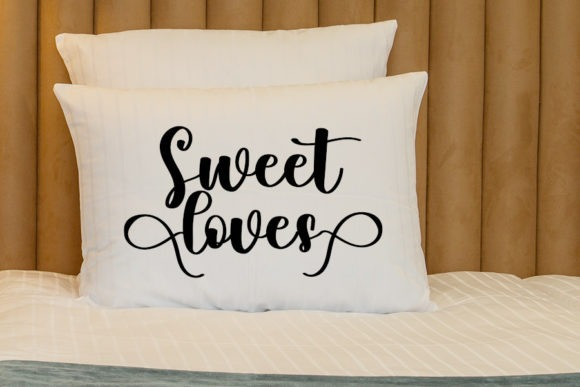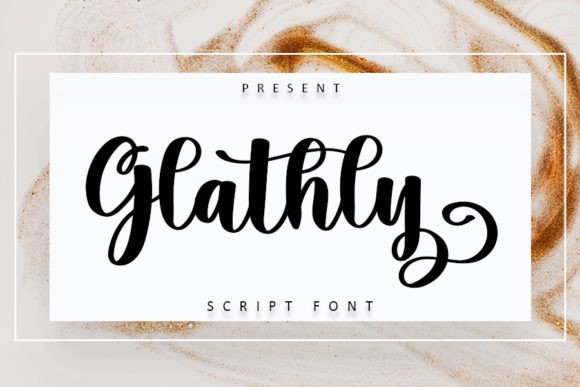
Glathly Font
Glathly Font is an enchanting script font. It will add a luxury spark to any design project that you wish to create! This font is PUA encoded which means you can access all of the amazing glyphs and ligatures with ease!